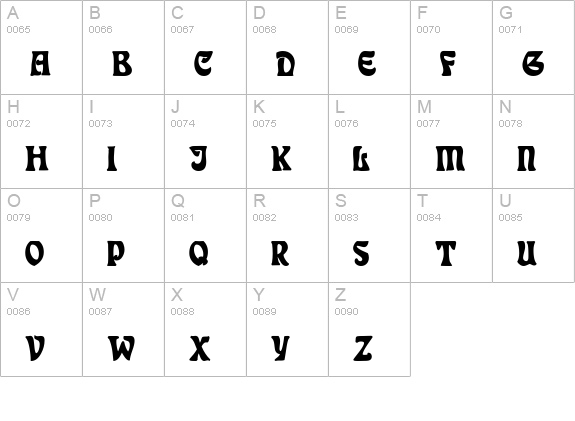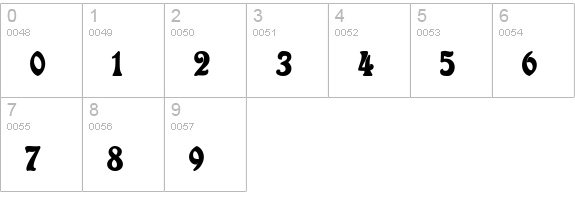
DeauvilleSSK Bold is a strong, high-contrast variant in the DeauvilleSSK typeface family \xE2\x80\x94 well suited to headlines, attention-grabbing titles, and strong calls-to-action.
DeauvilleSSK Bold is a striking and versatile font that exudes elegance and sophistication. Its bold strokes and clean lines make it perfect for making a bold statement in any design project. Whether you're designing a poster, logo, or heading, DeauvilleSSK Bold will surely capture the attention of your audience. The best part is that DeauvilleSSK Bold is completely free to download at FontsMarket.com. This means you can easily access this stunning font and incorporate it into your designs without any cost. Don't miss out on the opportunity to elevate your projects with the timeless beauty of DeauvilleSSK Bold. Download it today and let your creativity shine!